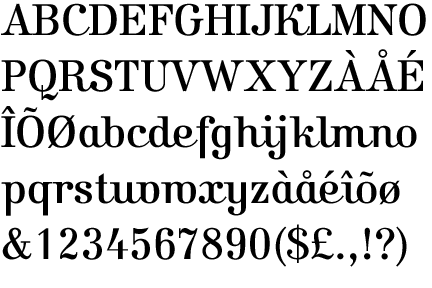
I'm currently in the process of giving a "face-lift" to my personal identity as well as my website + portfolio.
For the past 2 years I've been using Vista Sans (Alternate + Regular) as the typeface for my identity and promotion materials, and although I still quite like it, I would like to see if you guys have any suggestions in terms of similar typefaces to Vista that I could possibly use.
Please keep in mind: I'm looking for something that's presentable in both print and web mediums.
Any/all suggestions are welcome.
Unless there's some sort of technical issue that Vista isn't addressing properly, it doesn't seem to make sense to switch to something similar. If you're switching, it's typically better to switch to something completely different. What do you want your font to convey about your firm?
I agree with your comment in reference to switching to something different, although my intension is to first see what else is out there (that I might not be aware of)
I may or may not make a switch, but I do think it is good to scope out some other options.
In terms of what the font should convey about my work I'd like something that says "modern, elegant, simple, clean, smart" with a subtle touch of femininity.
On that same note, if you visit my website you'll see that I have a somewhat feminine logomark, which is the most prominent part of my identity. So, the typeface should mainly accommodate this mark both on my website and the stationery materials that carry it.
Hope this explains what I'm looking for a bit better..
One thing that would be interesting to know is – why are you wanting to switch? Can you describe what it is about Vista that you're not quite happy with?
That should make it easier to suggest alternatives.
"‘modern, elegant, simple, clean, smart' with a subtle touch of femininity"
You might like Parisine Plus.
Since you're looking for a font for web and print usage I'd suggest either to stick to your current choice or take a closer look at Helvetica, Arial, Lucida Grande and Geneva. By choosing one of these websafe fonts you will definitely be out of deep waters.
If you'd like to have a serif font I'd suggest Georgia or Times.
I took a look at your site...(nice work BTW)
and I don't think you really need to replace the Vista Sans...however if you want something more feminine/elegant, I would go with what Altaira suggested, its perfect for what youre looking for.
Take a look at Brevia or Tempera Rose Pro too.
You can also checkout Informa, Alber, Effra and Ronnia.
Ayda, although your logo has some feminine traits (it's "wispy", and
mysterious) it also has some masculine ones (symmetry, rigidity of line).
So the first thing that popped into my mind was Kursivschrift:
I like some of Jonathan's suggestions too (although I couldn't find Effra).
BTW, concerning what Stefan said, of course for any text on your site that
is actual text, you should choose a font that matches your identity. But
using a web font for all parts of your identity is unnecessarily restrictive.